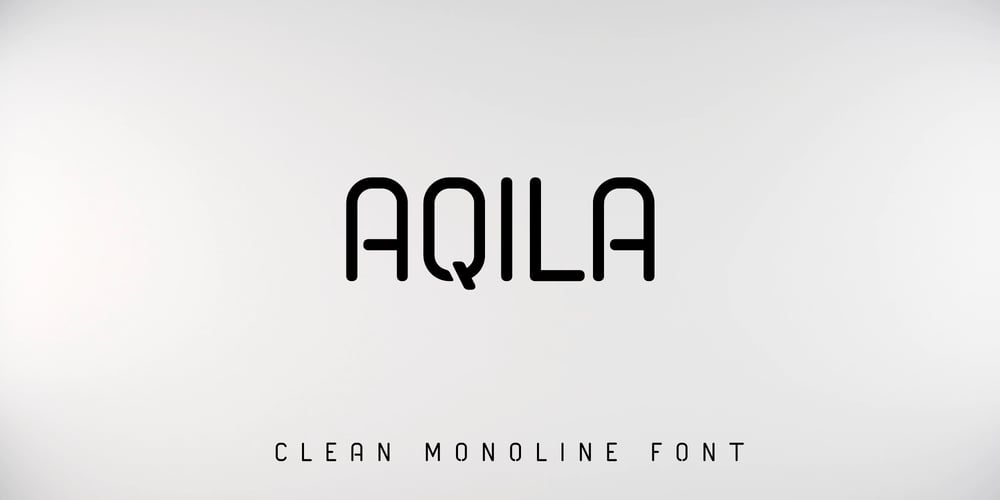
Aqila Font Family was designed by Agustian Eko Saputro, Aprilia Nurina Putri and published by Mightyfire. Aqila contains 1 styles and family package options. Please let us introduce Aqila. A very clean and minimalist font that has a modern looks.The characteristic of Aqila is thin, neat and simple. It doesn’t need much ornament to show its uniqueness.We hope and be honored if Aqila can be the part of your special moment.Thank you! 🙂